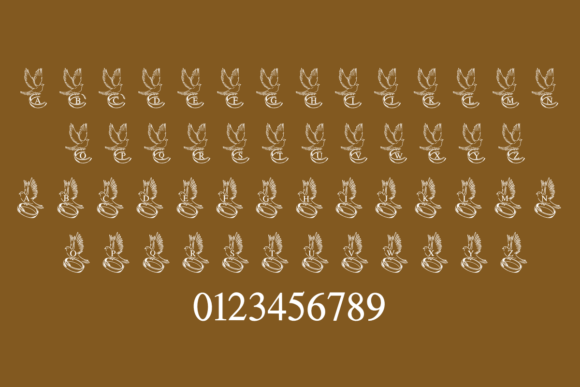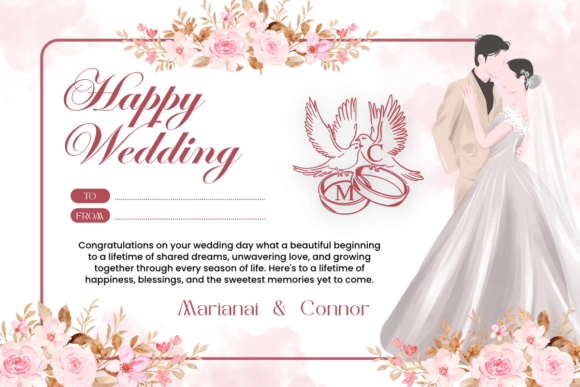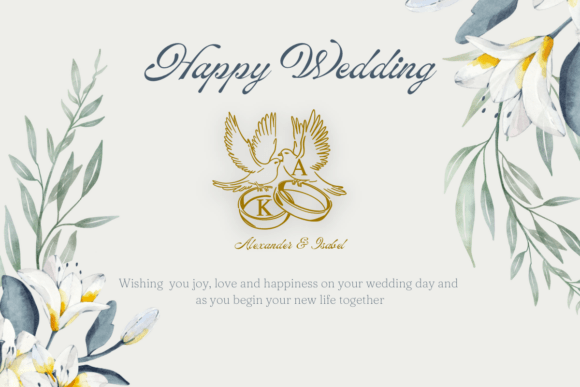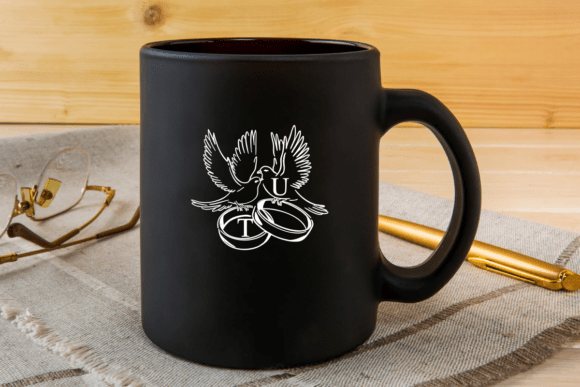
Dove Wedding Monogram Font: Elevate Your Designs with Elegance
The Dove Wedding Monogram Font is a stunning decorative font that has captured the hearts of designers and crafters alike. With its delicate and elegant design, this font is perfect for creating beautiful wedding-themed designs, as well as a wide range of other creative projects. In this article, we’ll dive into the world of Dove Wedding Monogram Font and explore its features, uses, and benefits.
What is Dove Wedding Monogram Font?
Dove Wedding Monogram Font is a decorative font designed specifically for wedding and romantic-themed designs. Its intricate and elegant design makes it perfect for creating beautiful monograms, wedding invitations, and other wedding-related stationery. However, its versatility extends beyond wedding designs, making it an excellent choice for various creative projects.
Features of Dove Wedding Monogram Font
- Decorative Design: The Dove Wedding Monogram Font boasts a stunning decorative design that adds a touch of elegance to any project.
- Versatility: This font can be used for a wide range of designs, including wedding monograms, invitations, stationery, banners, social media posts, and more.
Uses of Dove Wedding Monogram Font
The Dove Wedding Monogram Font is an incredibly versatile font that can be used for various creative projects. Here are some ideas to get you started:
- Wedding Monograms: Create stunning wedding monograms for invitations, stationery, and other wedding-related designs.
- Greeting Cards: Design beautiful greeting cards for special occasions, such as weddings, anniversaries, and birthdays.
- Stationery: Add a touch of elegance to your stationery, including notebooks, journals, and diaries.
- Banners: Create eye-catching banners for weddings, events, and social media promotions.
- Mugs and Cards: Design personalized mugs and cards for special occasions.
- Shirts and Apparel: Create custom apparel, such as t-shirts, hoodies, and tote bags, with beautiful monograms and designs.
- Social Media Posts: Elevate your social media posts with elegant monograms and graphics.
Benefits of Using Dove Wedding Monogram Font
Using the Dove Wedding Monogram Font offers several benefits, including:
- Unique Designs: Create one-of-a-kind designs that stand out from the crowd.
- Elegant Touch: Add a touch of elegance and sophistication to your designs.
Tips and Tricks for Using Dove Wedding Monogram Font
Here are some tips and tricks to help you get the most out of the Dove Wedding Monogram Font:
- Experiment with Colors: Try out different colors and color combinations to find the perfect match for your design.
- Play with Sizes: Experiment with different font sizes to create visual interest and hierarchy in your design.
- Combine with Other Fonts: Pair the Dove Wedding Monogram Font with other fonts to create a unique and visually appealing design.
The Dove Wedding Monogram Font is a beautiful and versatile decorative font that can elevate your designs to the next level. With its elegant design, ease of use, and versatility, this font is perfect for designers and crafters looking to create stunning wedding-themed designs and other creative projects. Whether you’re a professional designer or a DIY crafter, the Dove Wedding Monogram Font is an excellent addition to your font collection.